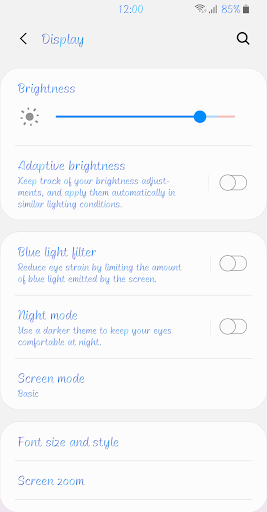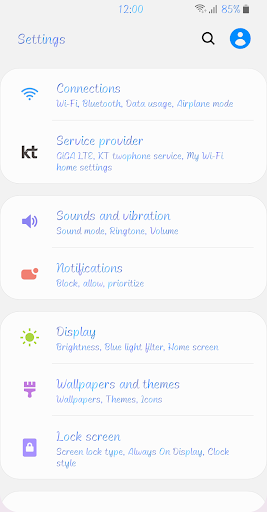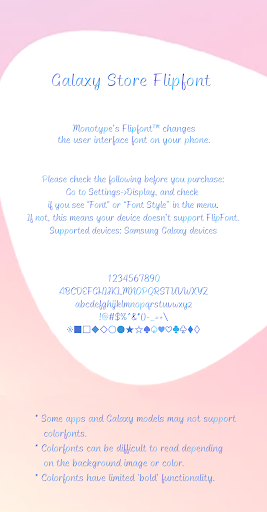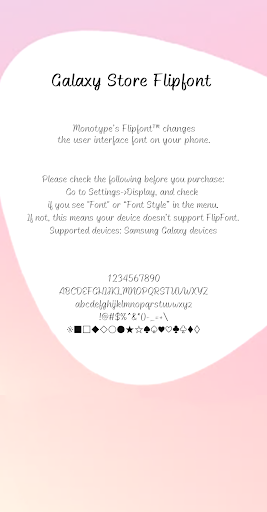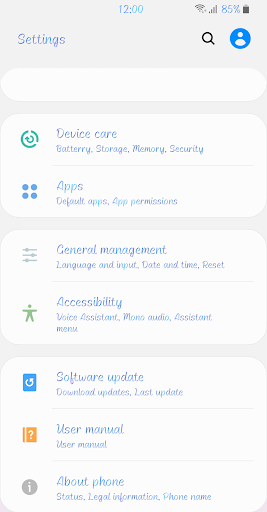
Fine Influencer
It is a script-style font with professional writing skills.
The strokes of the letters change in thickness as you move, and the finish of the stroke is thin and smooth.
The slope is not large, so it is stable, even and comfortable.